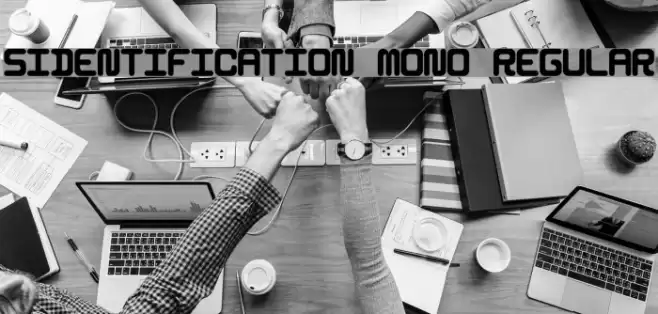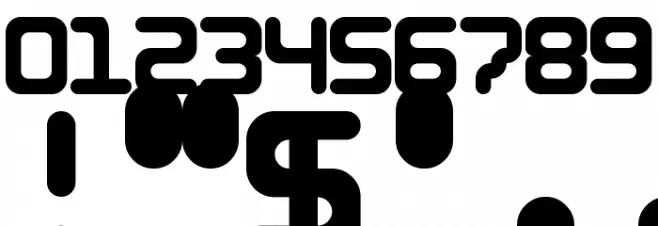
5Identification Mono Regular Font
5Identification Mono Regular Description
This font features a bold, geometric style with rounded edges, giving it a modern and futuristic appearance. The characters are monospaced, ensuring uniformity in width, which is ideal for coding and technical documents. The uppercase and lowercase letters maintain a consistent height, enhancing readability. The numerals and special characters are designed with the same boldness and rounded edges, providing a cohesive look across all glyphs. The overall design is clean and minimalistic, making it suitable for both digital and print media.
A bold, geometric monospaced font with rounded edges and a modern style from Uncategorized fonts.
- Proposed Projects: Ideal for coding, technical documents, digital interfaces, and modern branding projects.
- Use Case: Coding, Technical documents, Digital interfaces